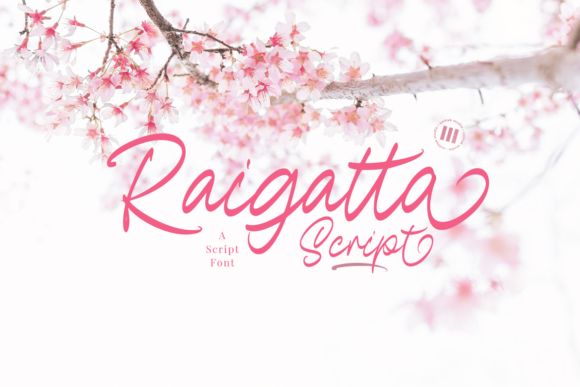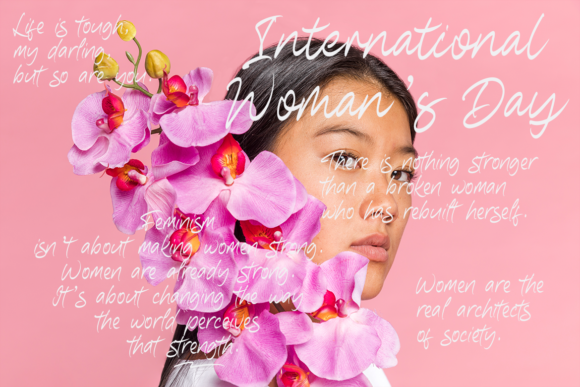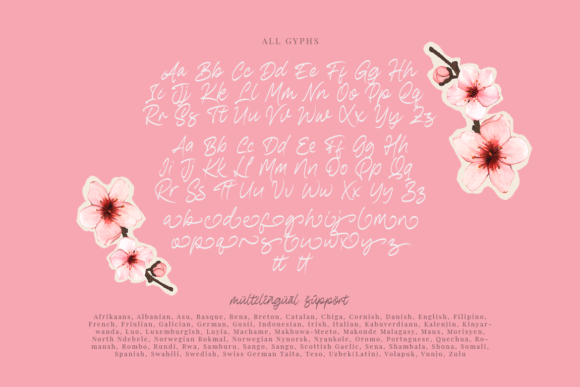
Raigatta Script is a versatile and cursive handwritten font. Fall for its ravishing style and use it to create gorgeous wedding invitations, beautiful stationary art, eye-catching social media posts, and much more!